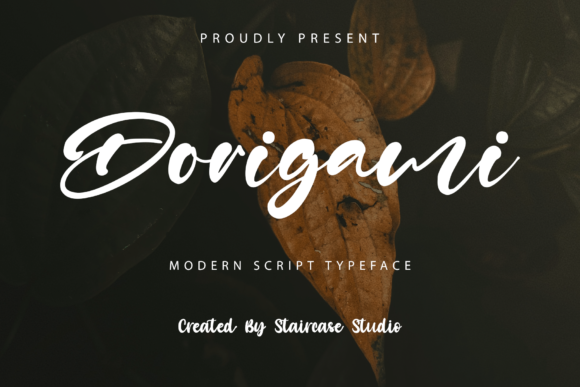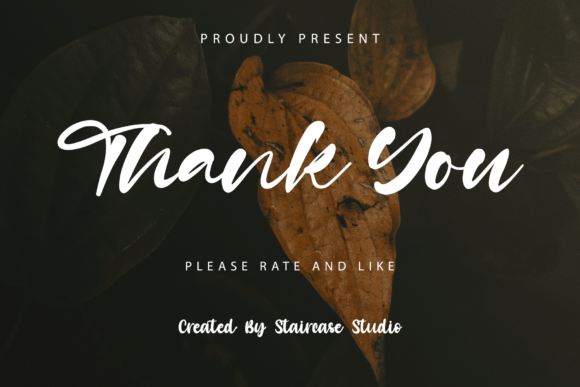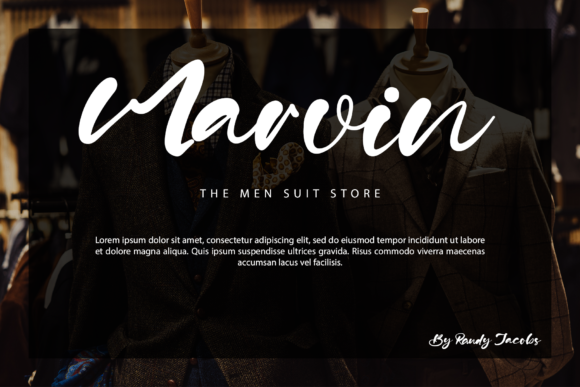
About Dorigami Font
Dorigami is a modern script typeface that has a collection of letters and numbers suitable for any of your creative projects. It works great on logotypes, branding design, digital lettering, T-shirt/apparel design, posters, magazines, signs, advertising, and so much more!